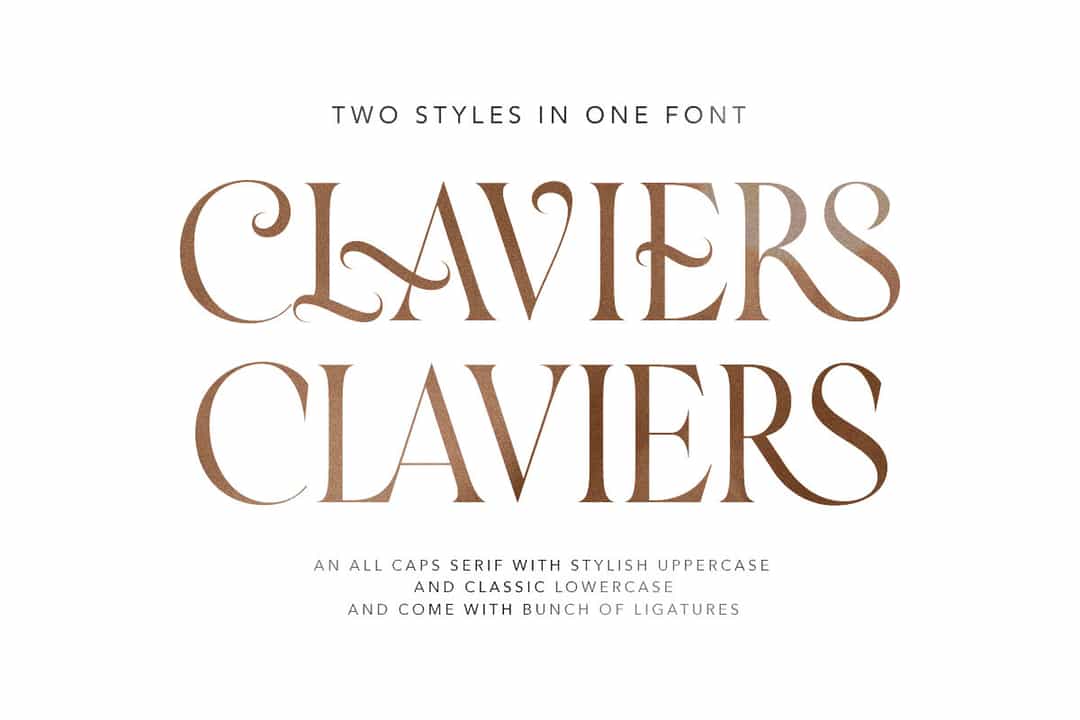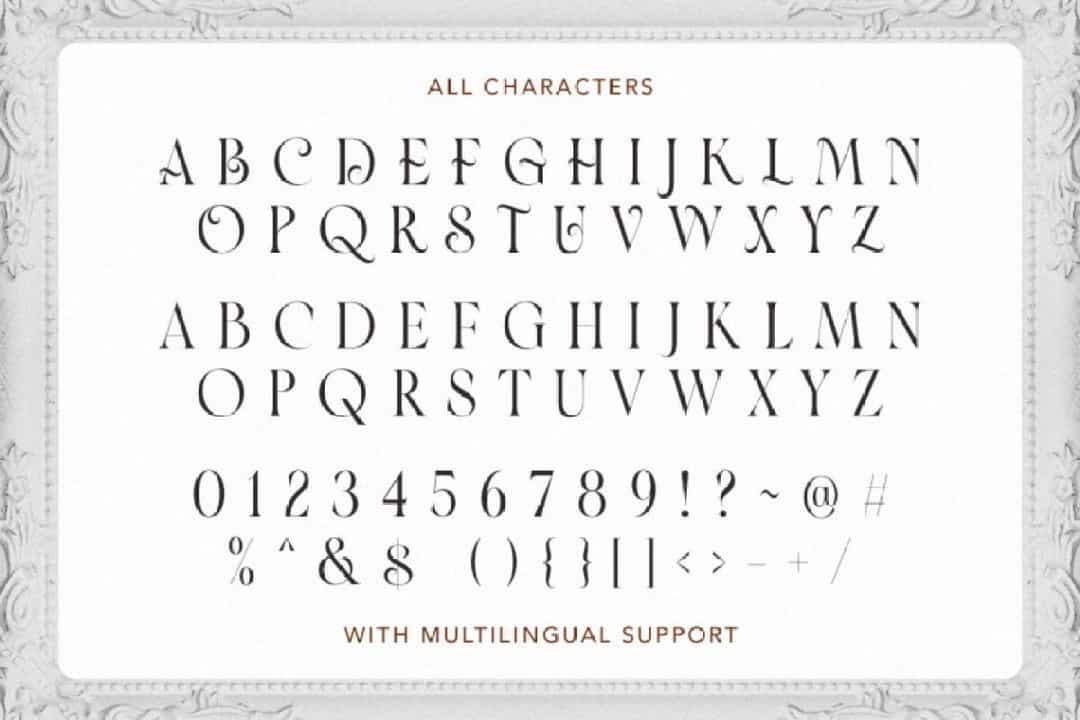
Claviers is a beautiful serif font with smooth edges that captures elegance and class. This font is ideal for such branding as luxury, elegant magazines and newspapers, as well as elegant invitations. Upgrade your design with the elegance of this incredible typeface that is classy and sophisticated.